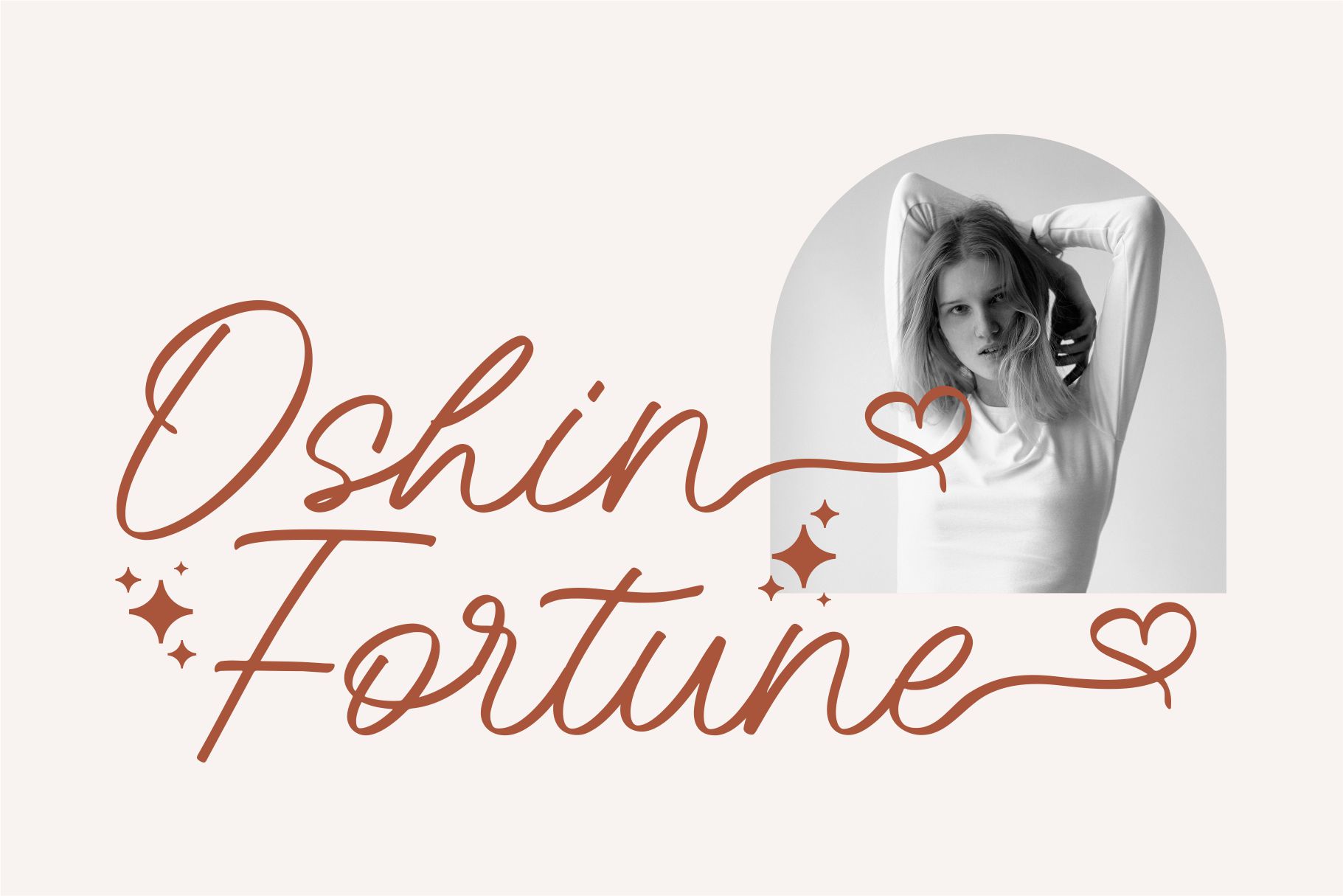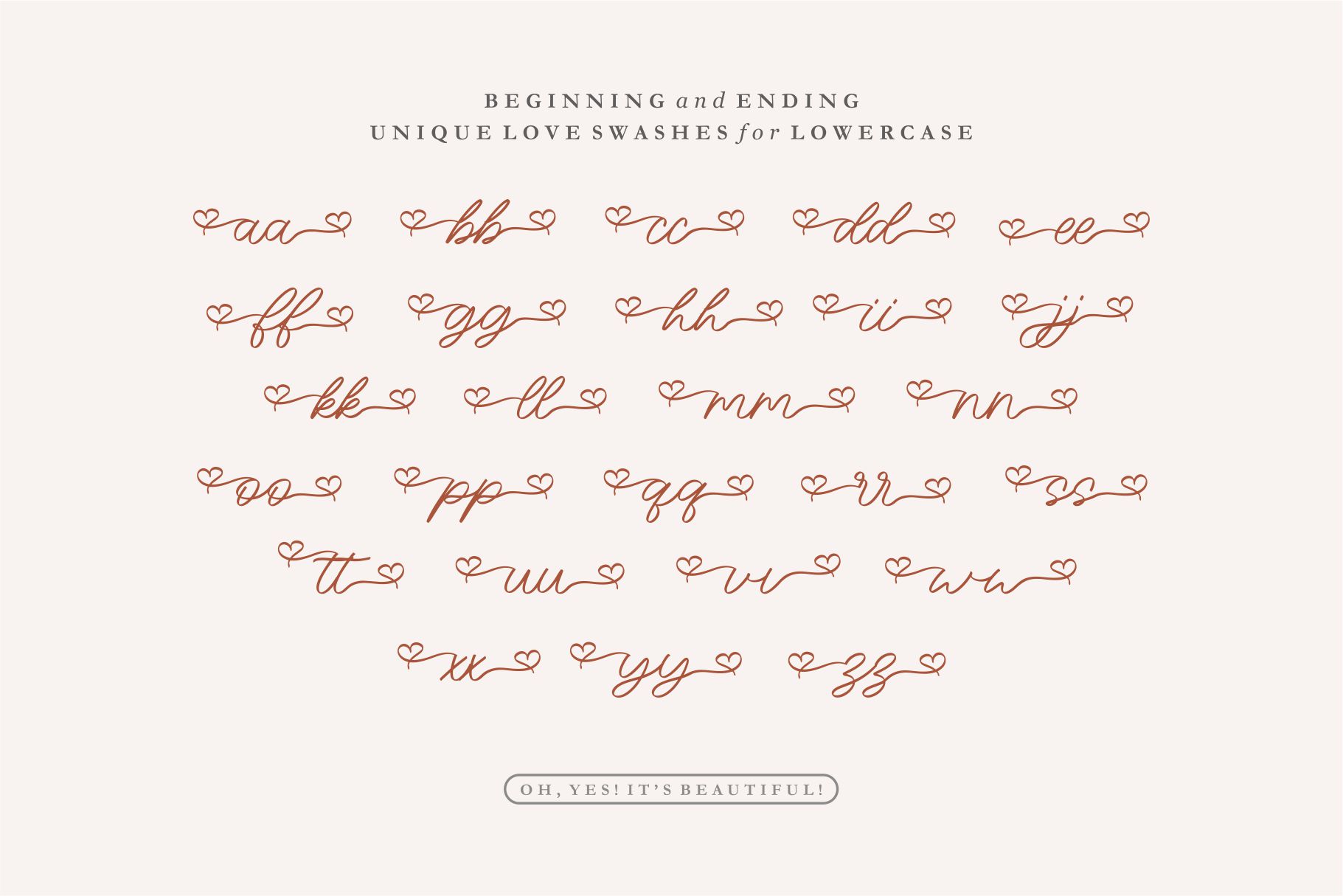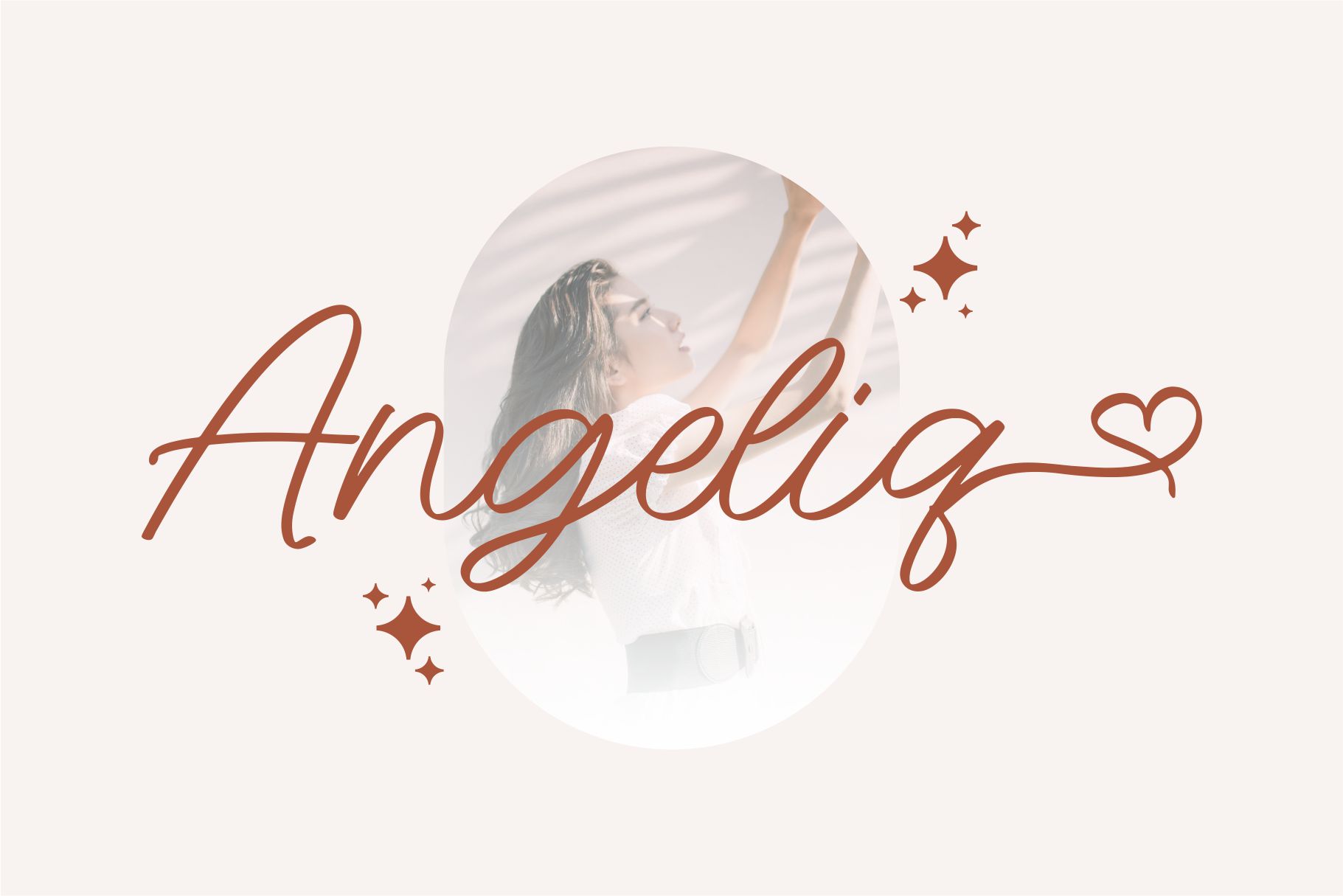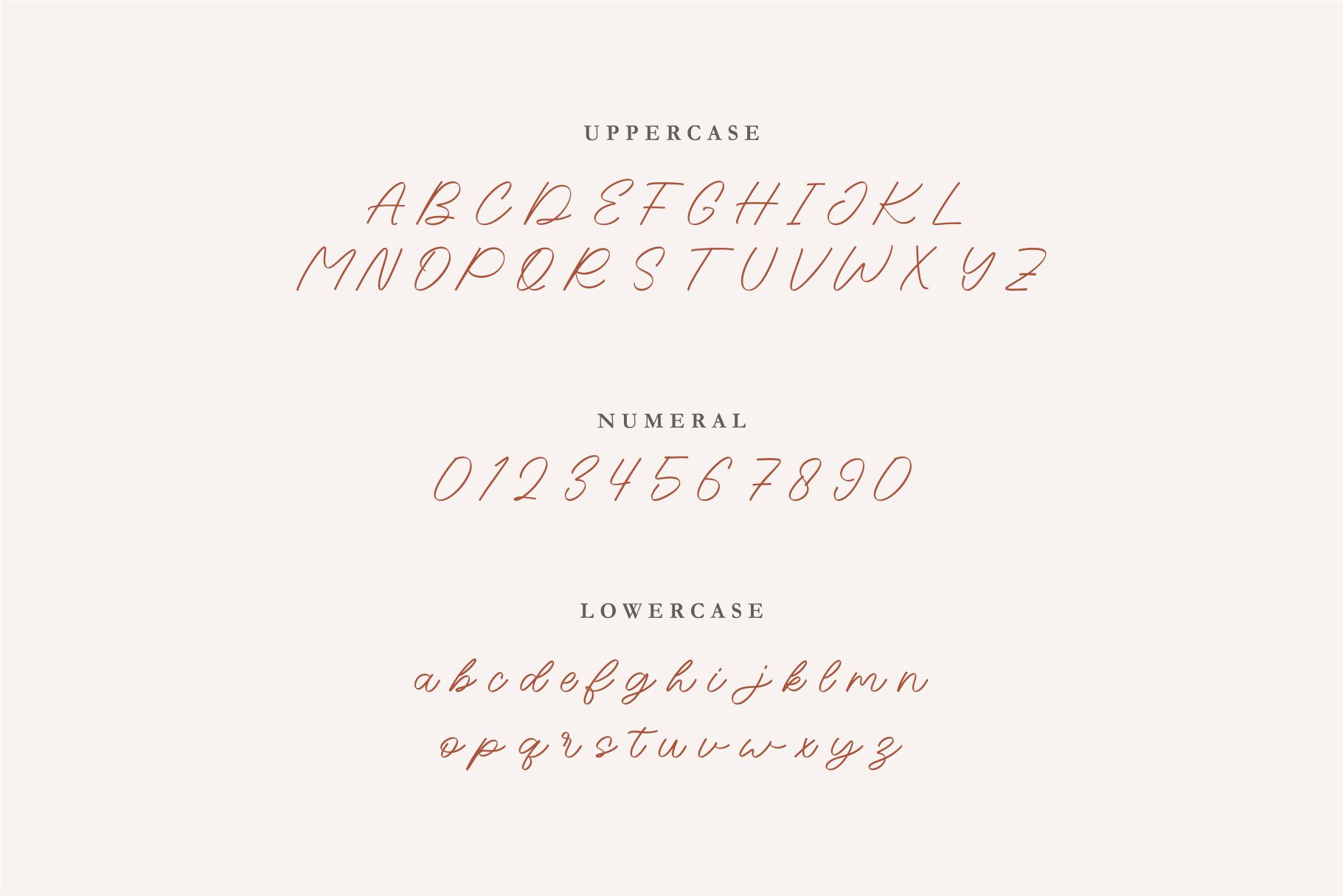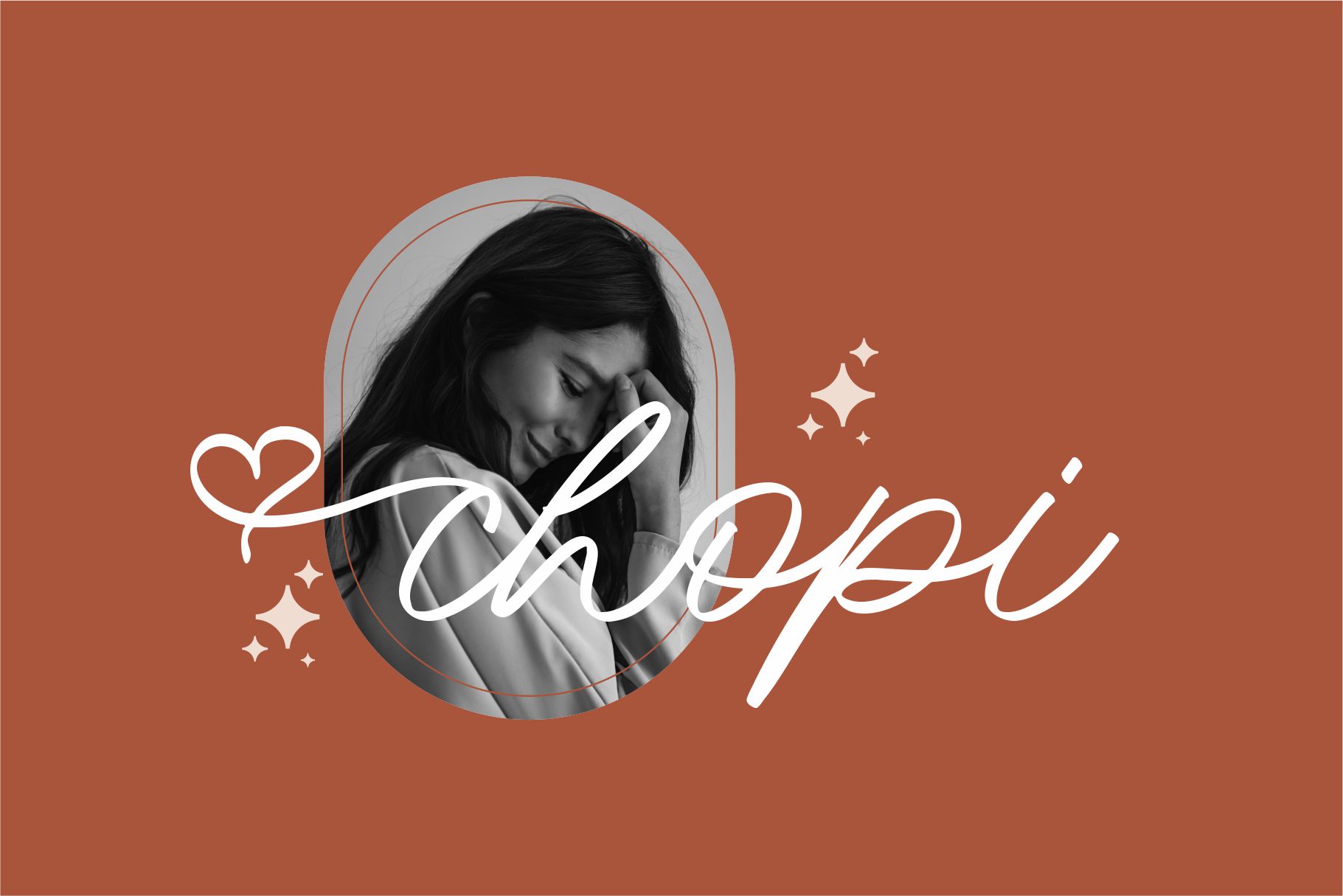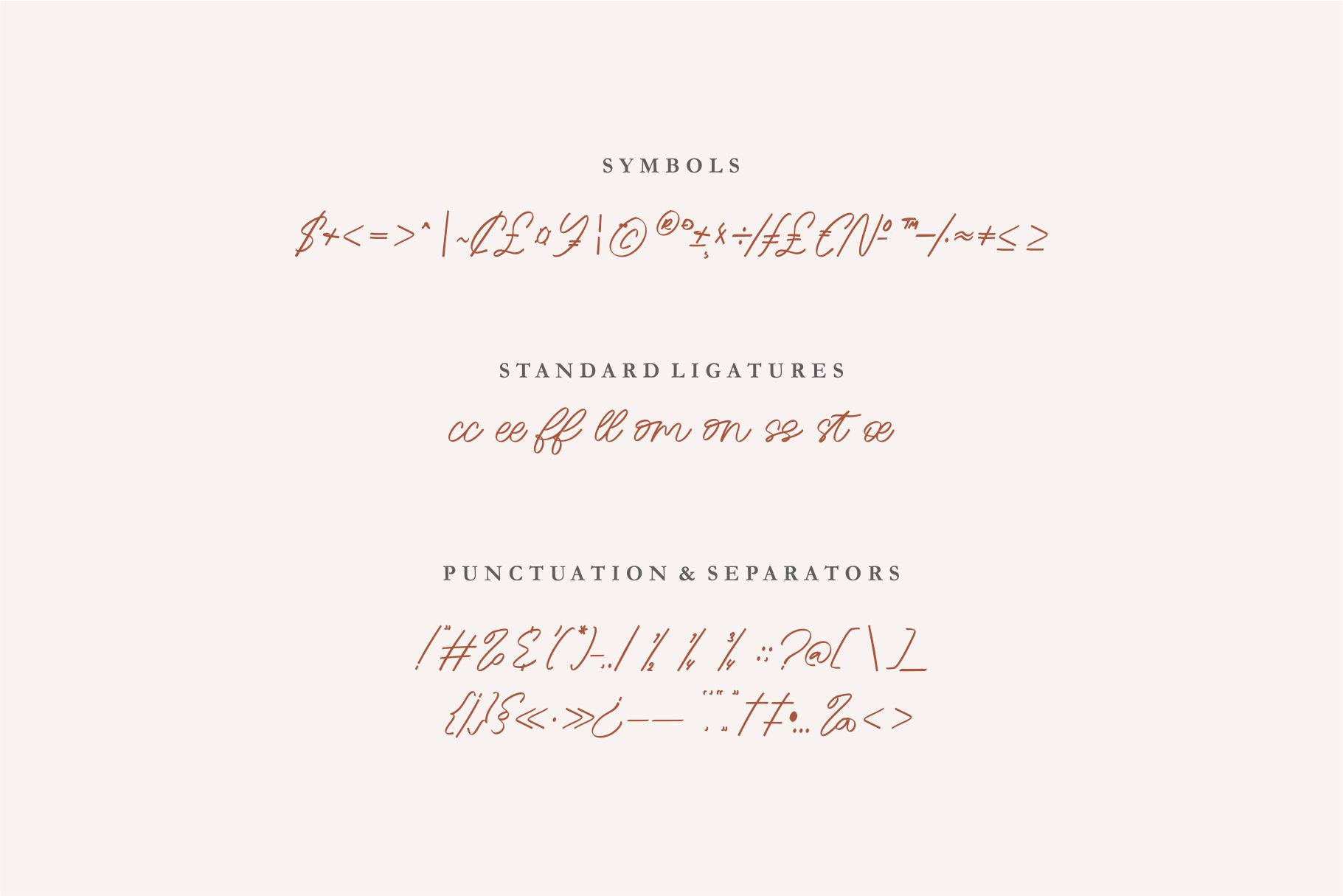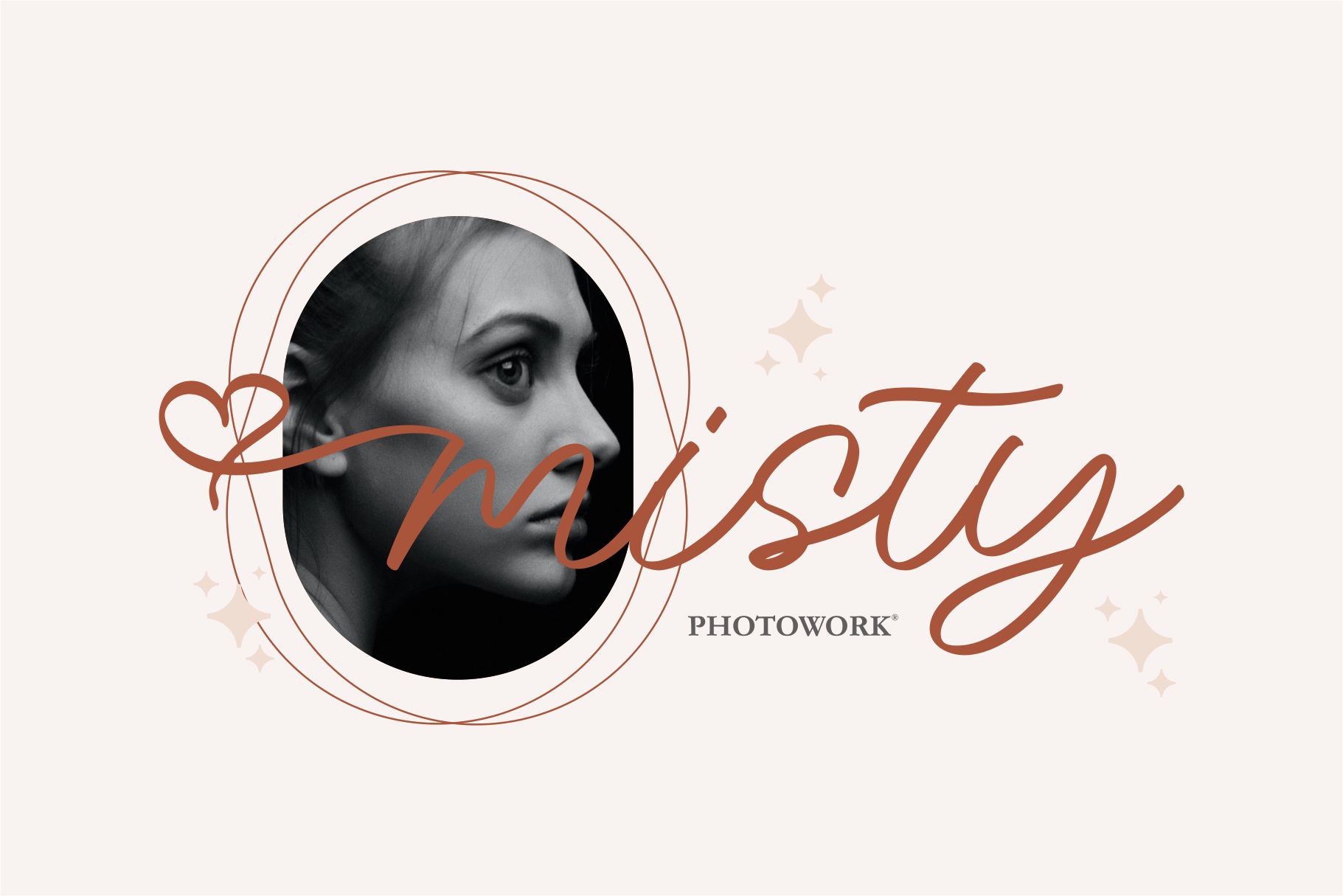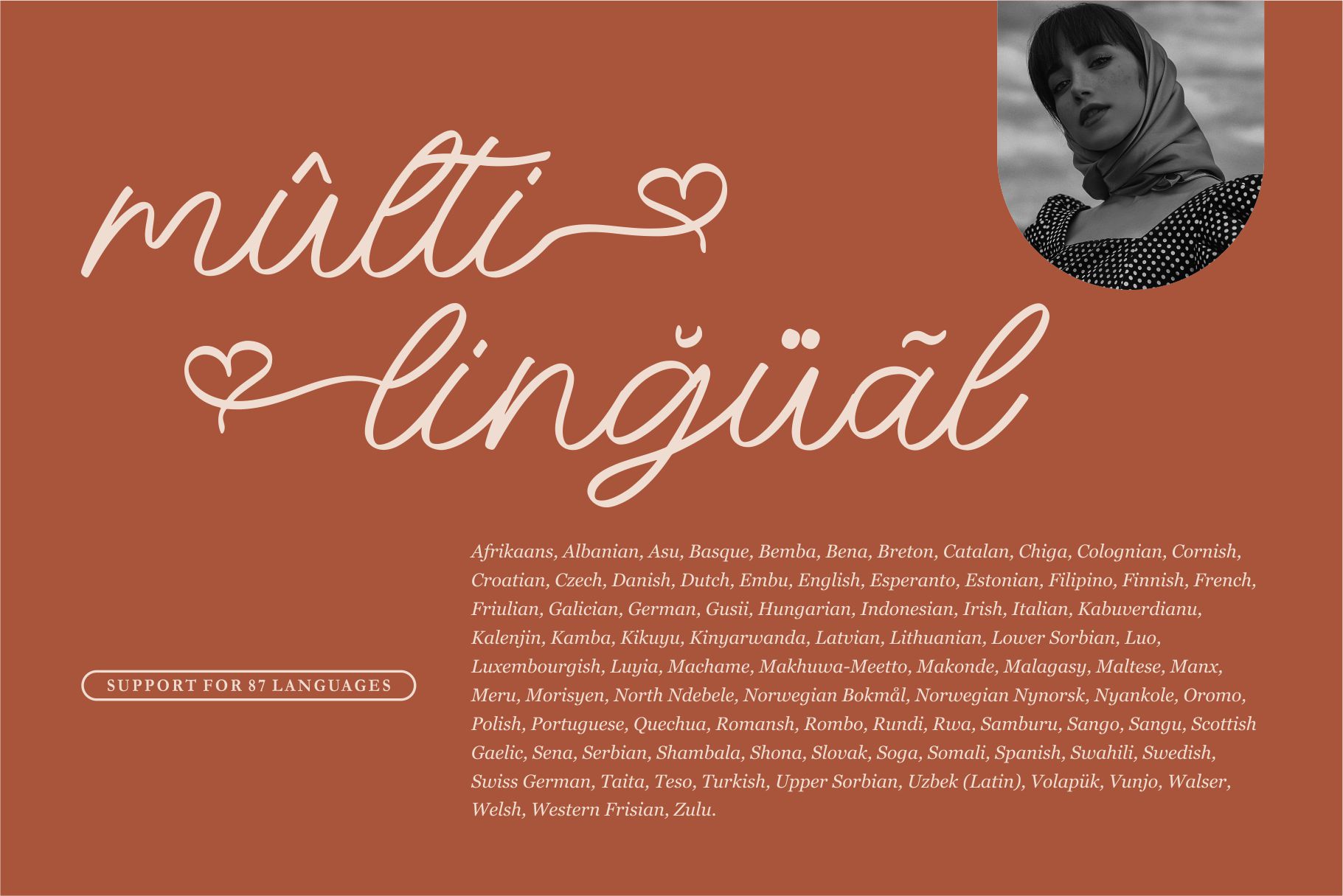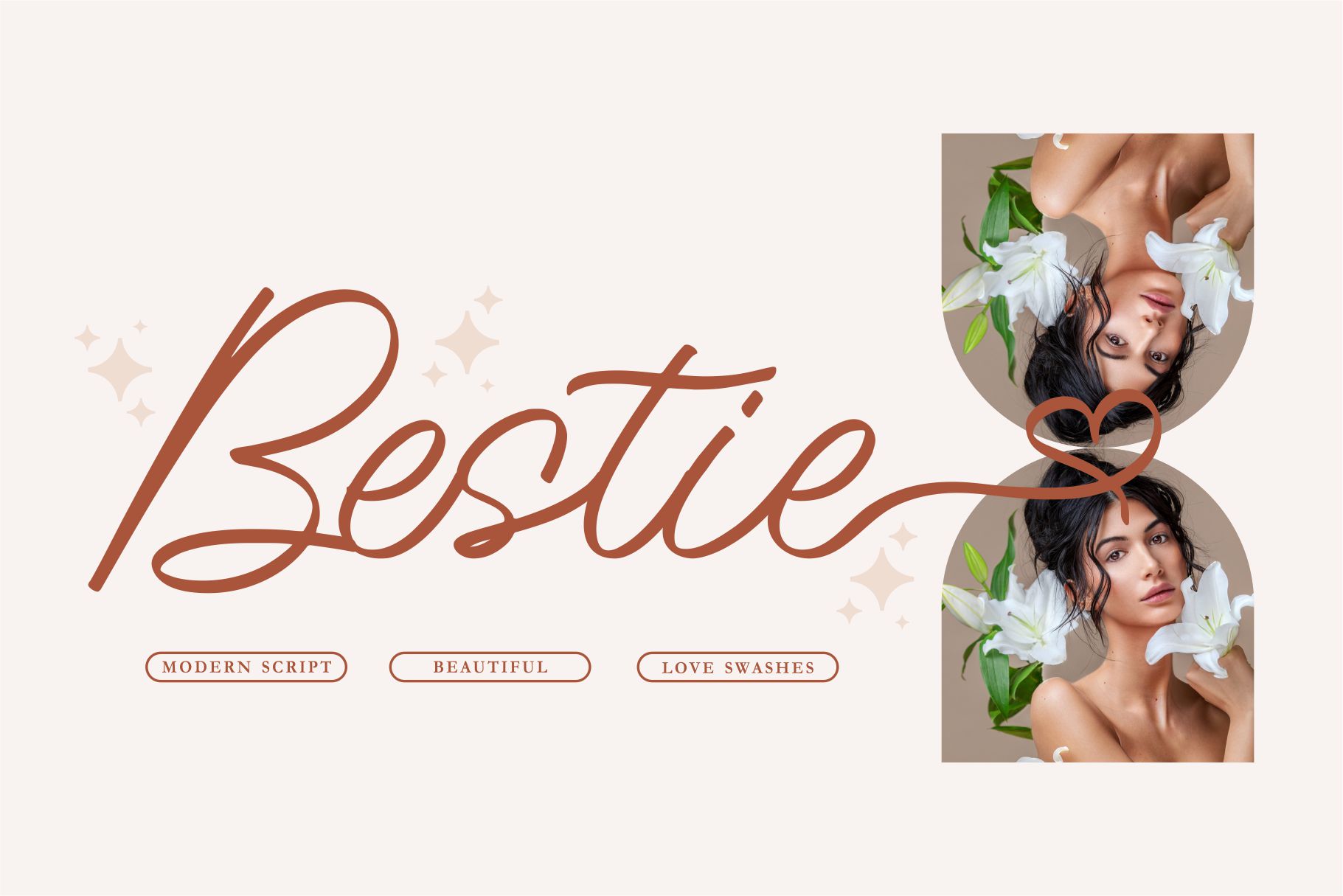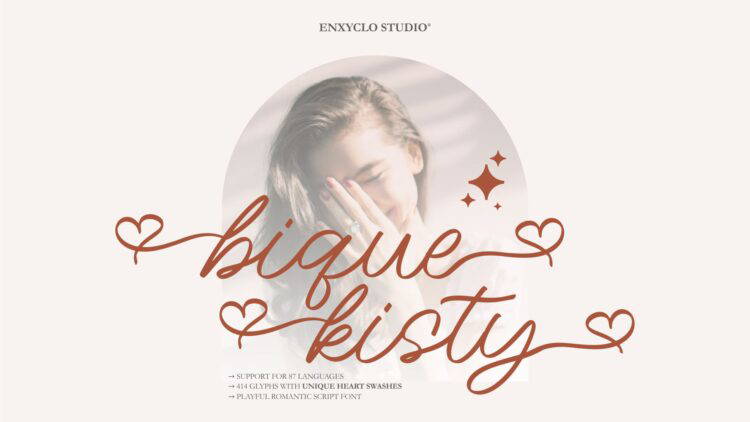
NCL Bique Kisty – Love Swash Script Wedding Font
NCL BIQUE KISTY is romantic love heart swash script font. It is unique handwritten script font with heart or love swashes. Masterfully designed to become a true favorite, this font has the potential to bring each of your creative ideas to the highest level! It was purposely crafted to be used in large point sizes, although it doesn’t lose its magic in small point sizes. It is perfect for wedding or romantic event, headline, billboard, magazines, website, titles, poster, branding, t-shirt design, and logos. No matter the topic, this font will be an incredible asset to your fonts’ library, as it has the potential to elevate any creation. With this beautiful font, absolutely you can make your project stand out from the rest. See the previews above to get some inspiration on how to use them.
• Contains 414 Glyphs
• Uppercase, Lowercase & Numeral
• Punctuation, Symbol & Currencies
• Beginning and ending unique heart love swashes for lowercase
• Multilingual Support